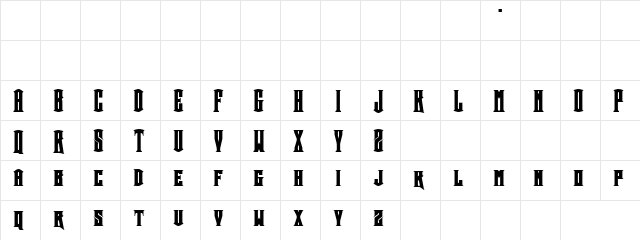
Detail Liver Regular
Design Context for Detail Liver Typeface
Detail Liver is a composed and adaptable typeface that performs quietly and consistently across a wide range of design contexts.